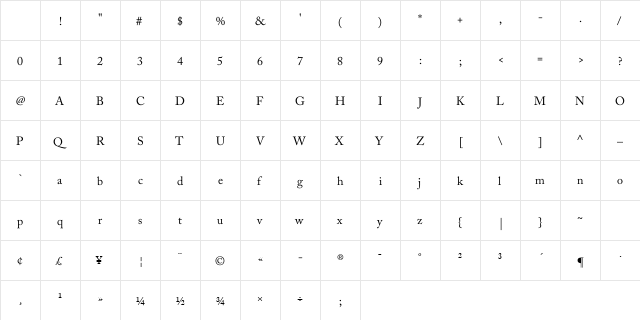
Complete AlQalam Makki Regular glyph index. Displaying only characters natively supported by AlQalam Makki Regular font.
AlQalam Makki is a composed and adaptable typeface that performs quietly and consistently across a wide range of design contexts.